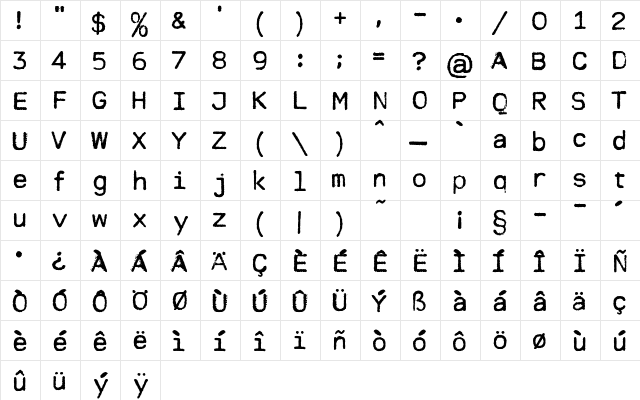
MODERN TYPEWRITER Regular
| Designer | Lukas Krakora |
Design Context for MODERN TYPEWRITER Typeface
MODERN TYPEWRITER brings the precise, column-aligned rhythm of monospaced typography to designs that value technical clarity and systematic order.
Pro Tip: Pair MODERN TYPEWRITER with a proportional sans for UI contexts where code-style labels and regular body copy need to coexist.